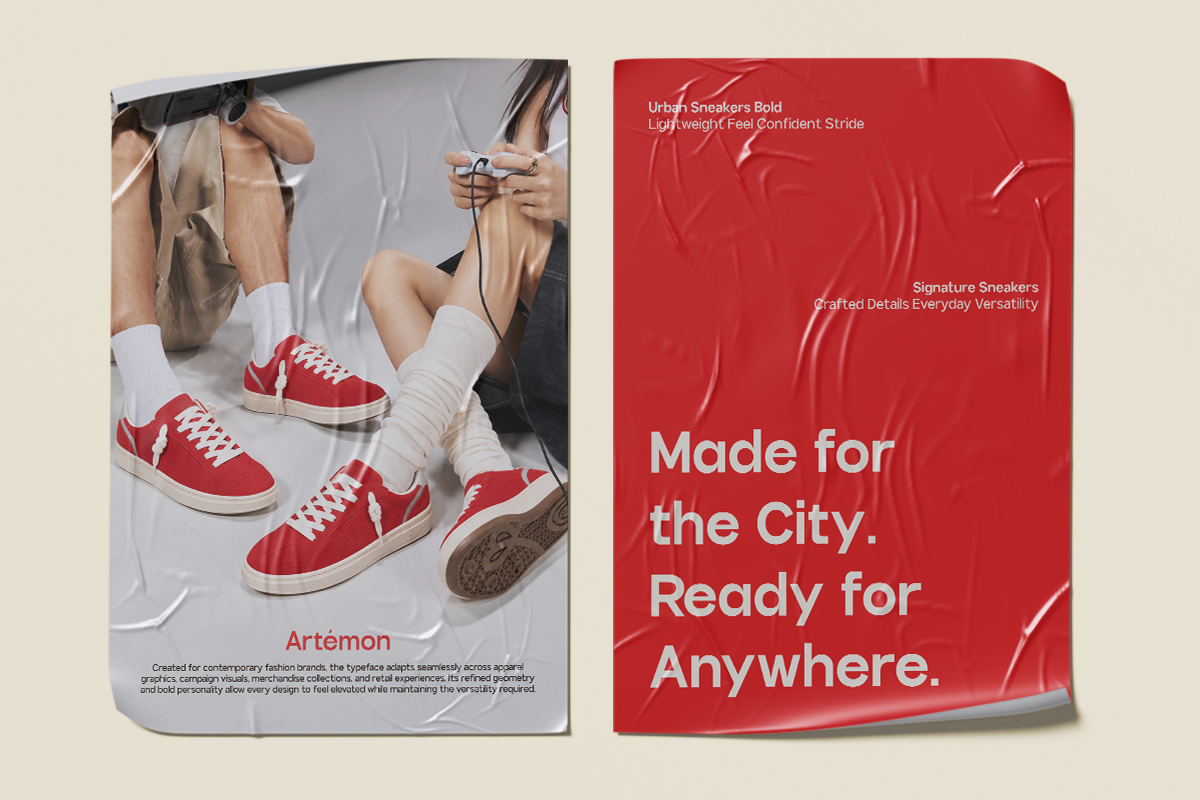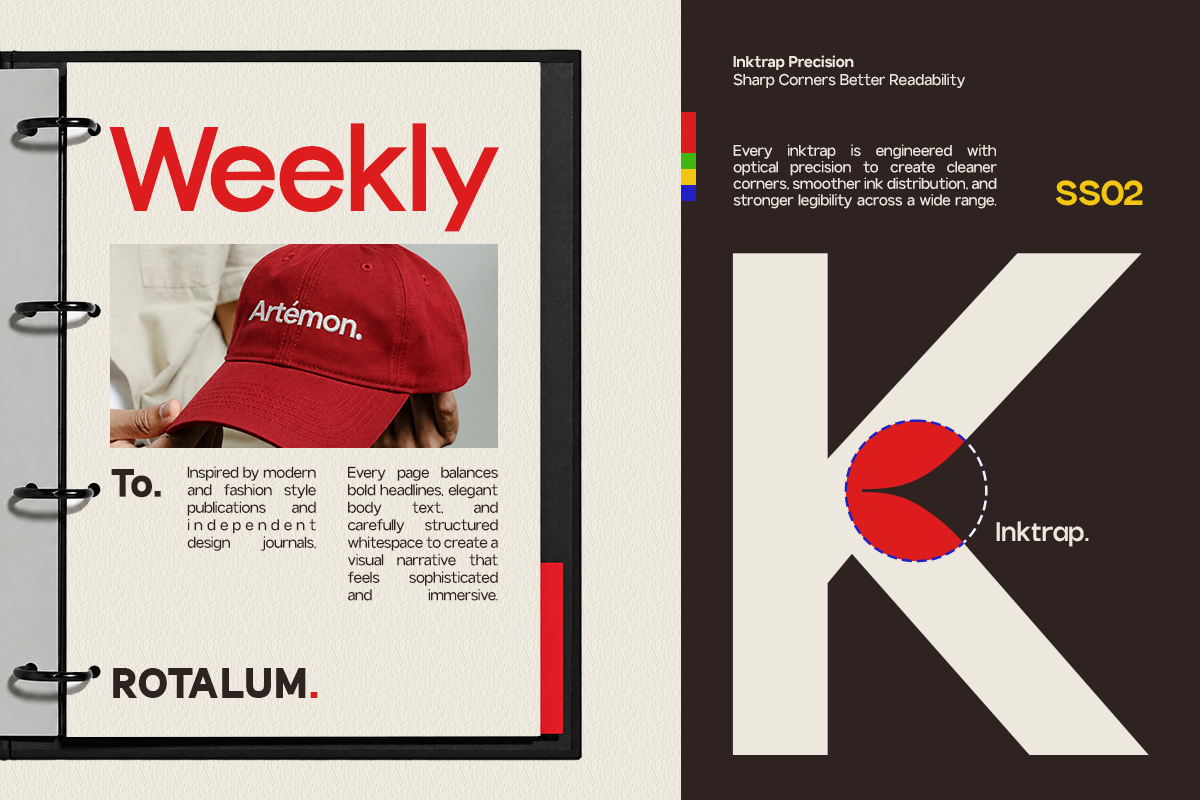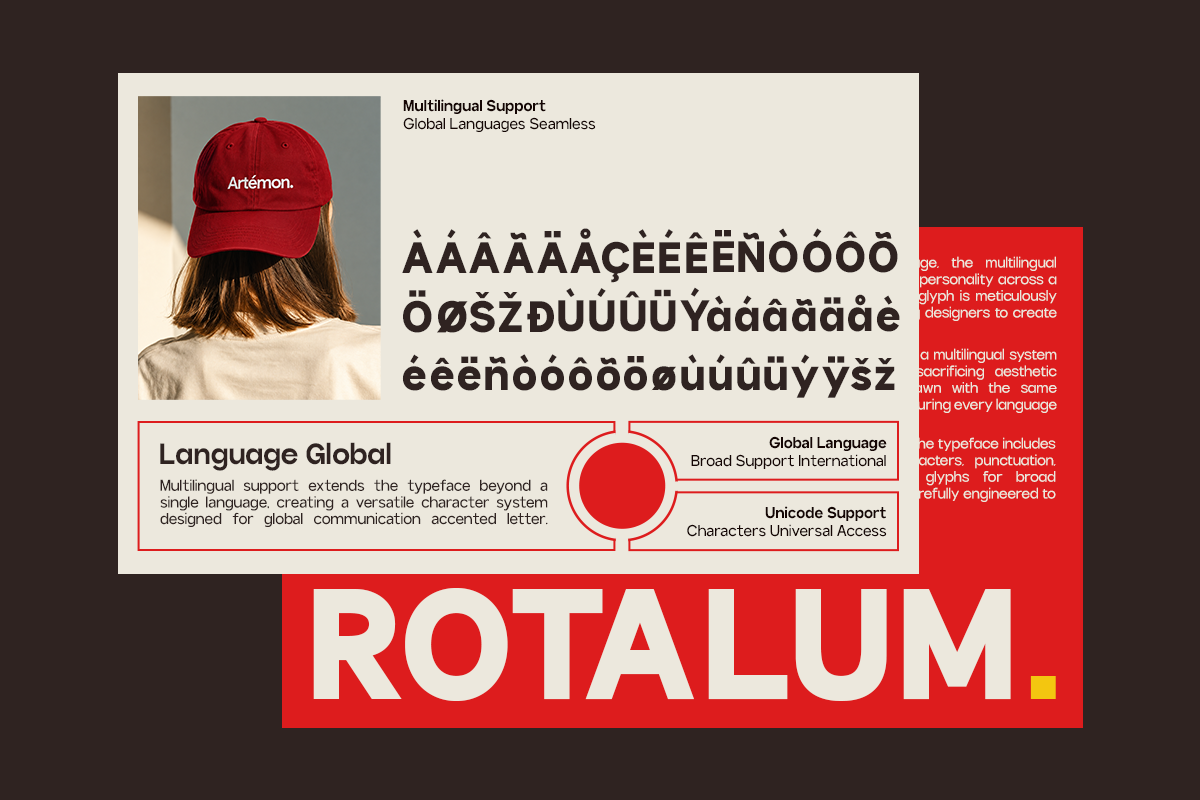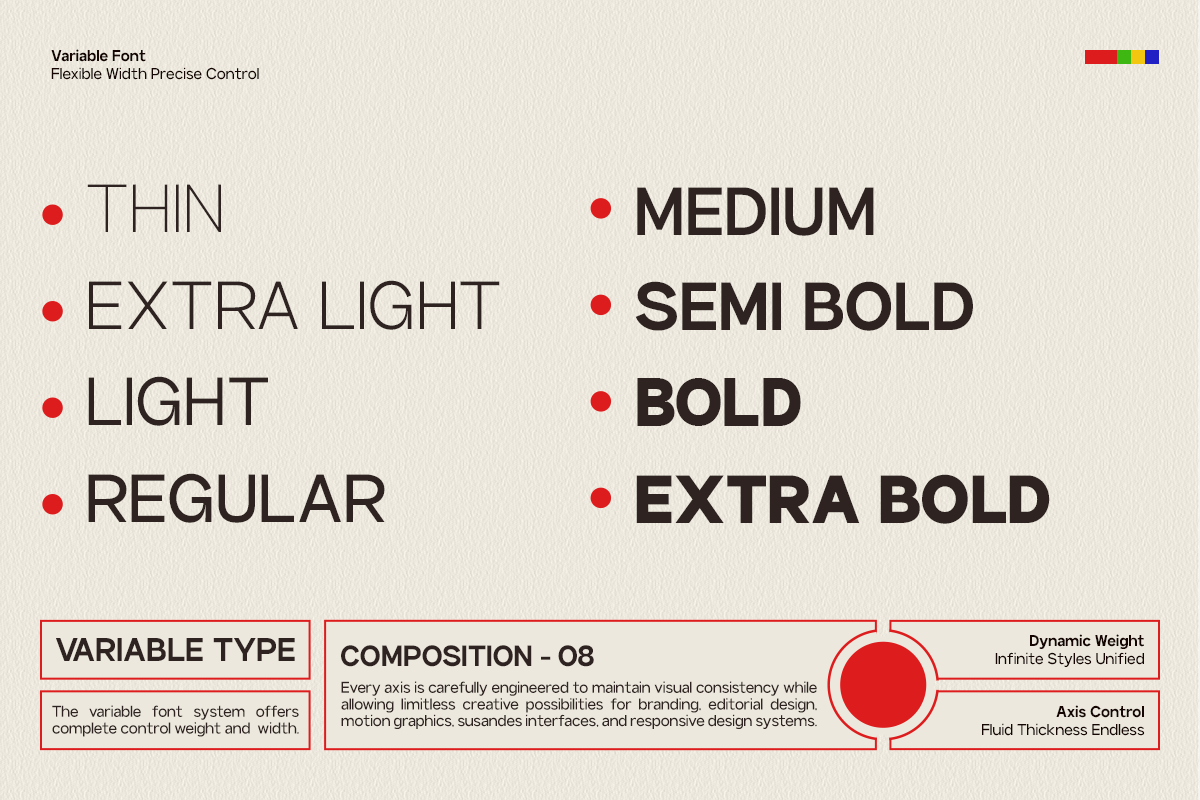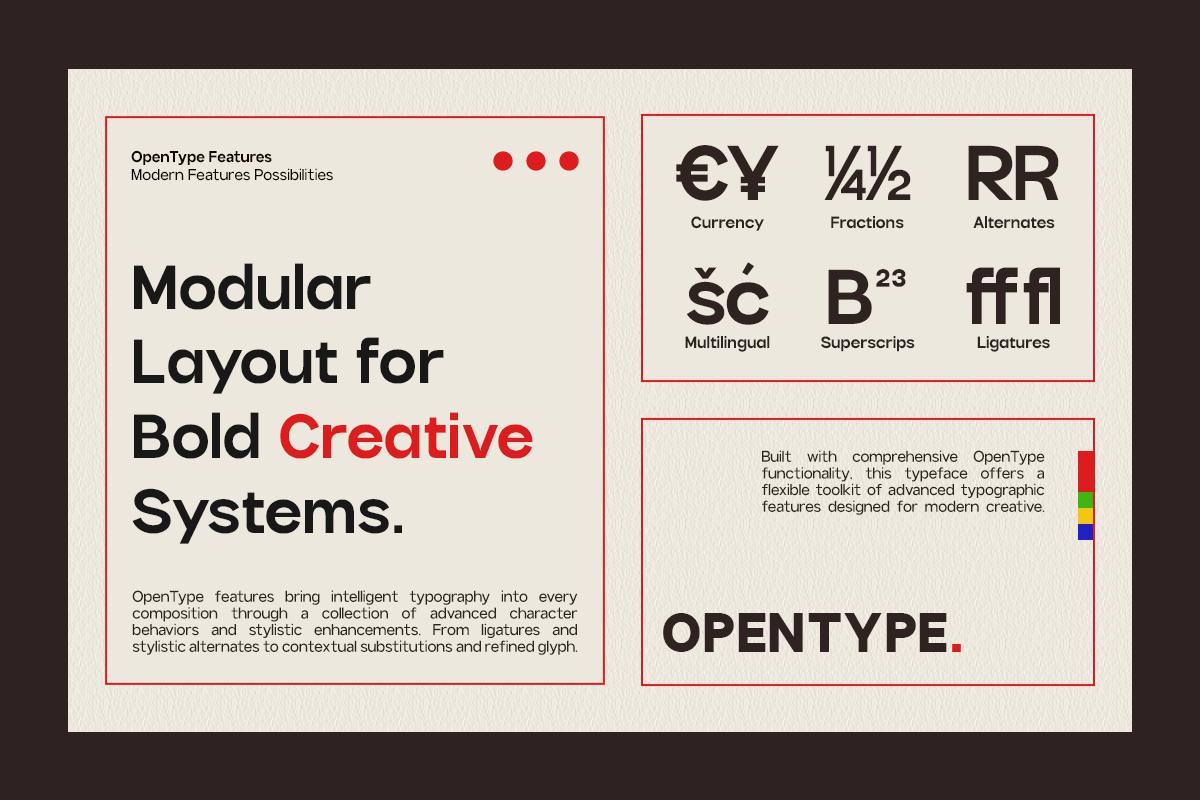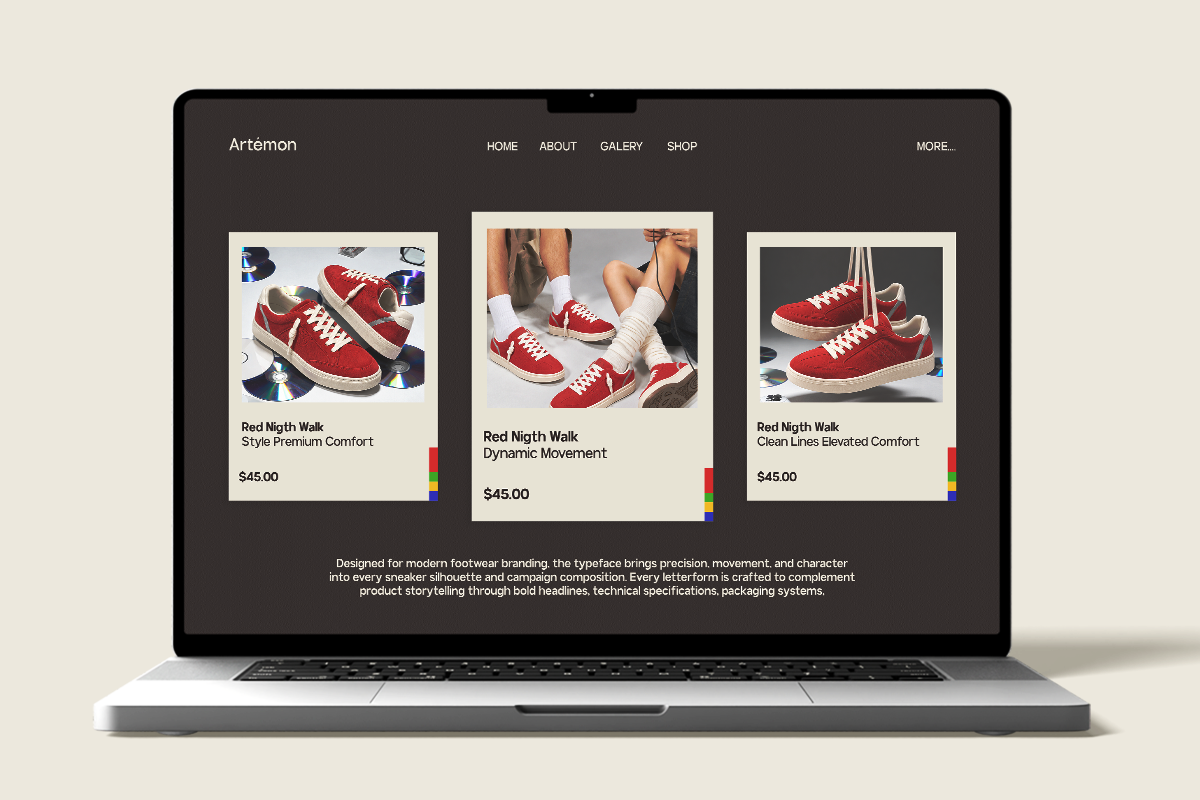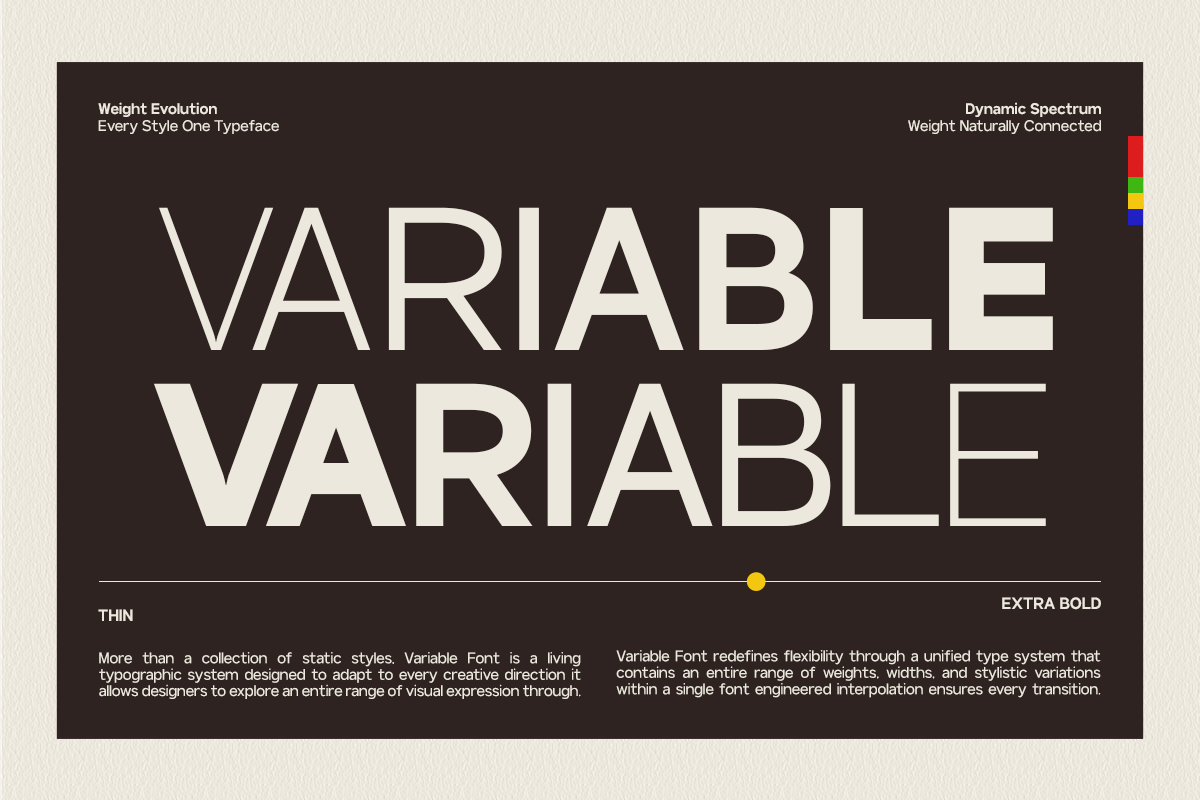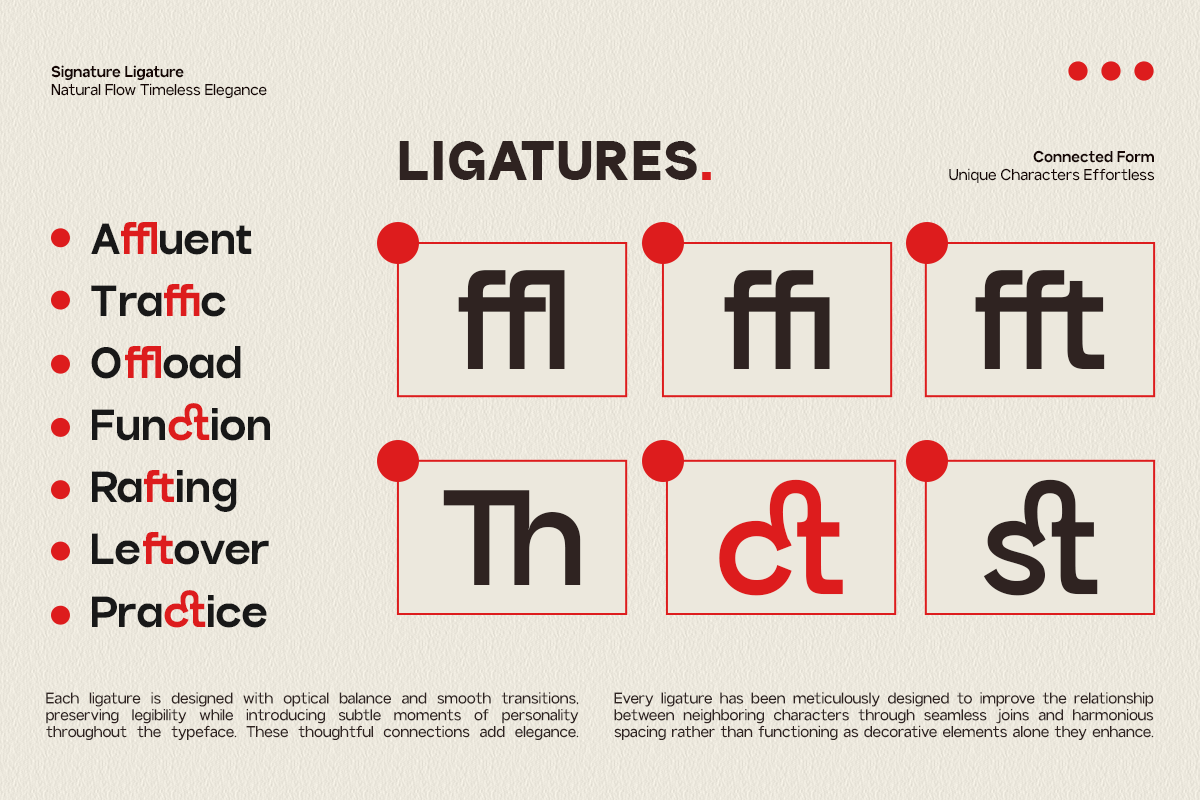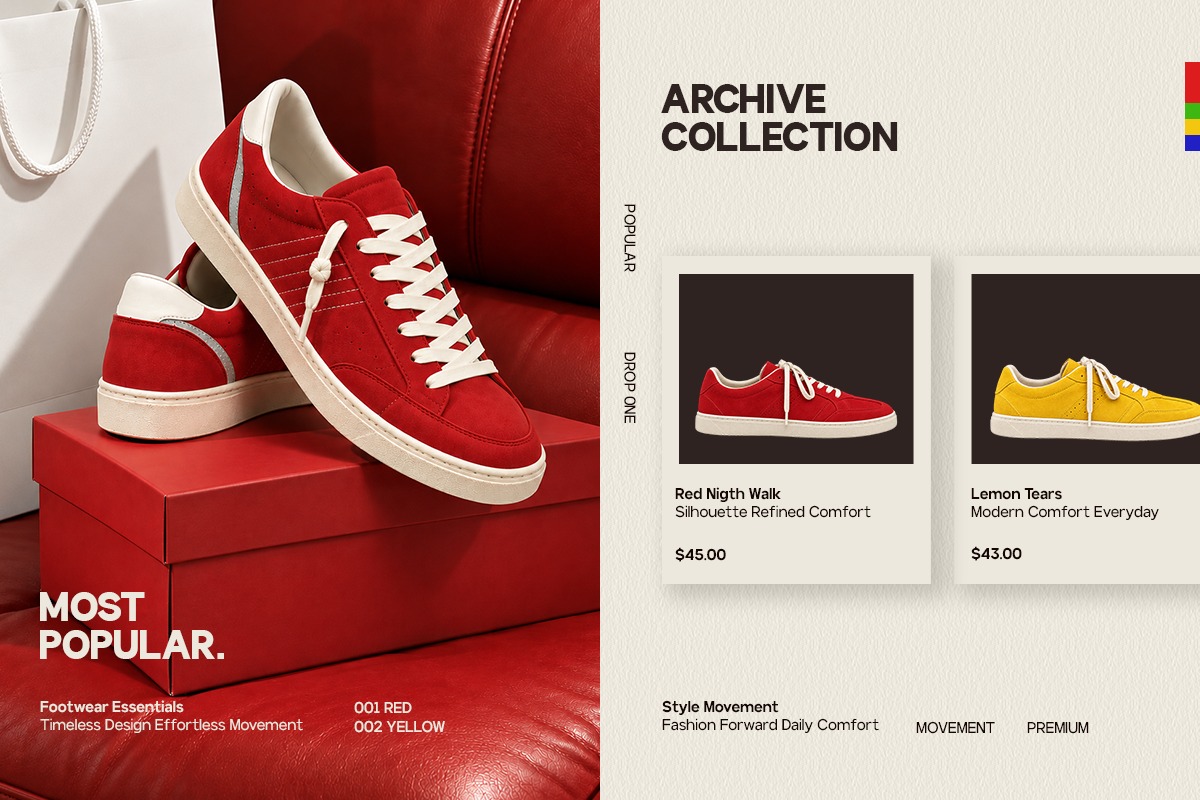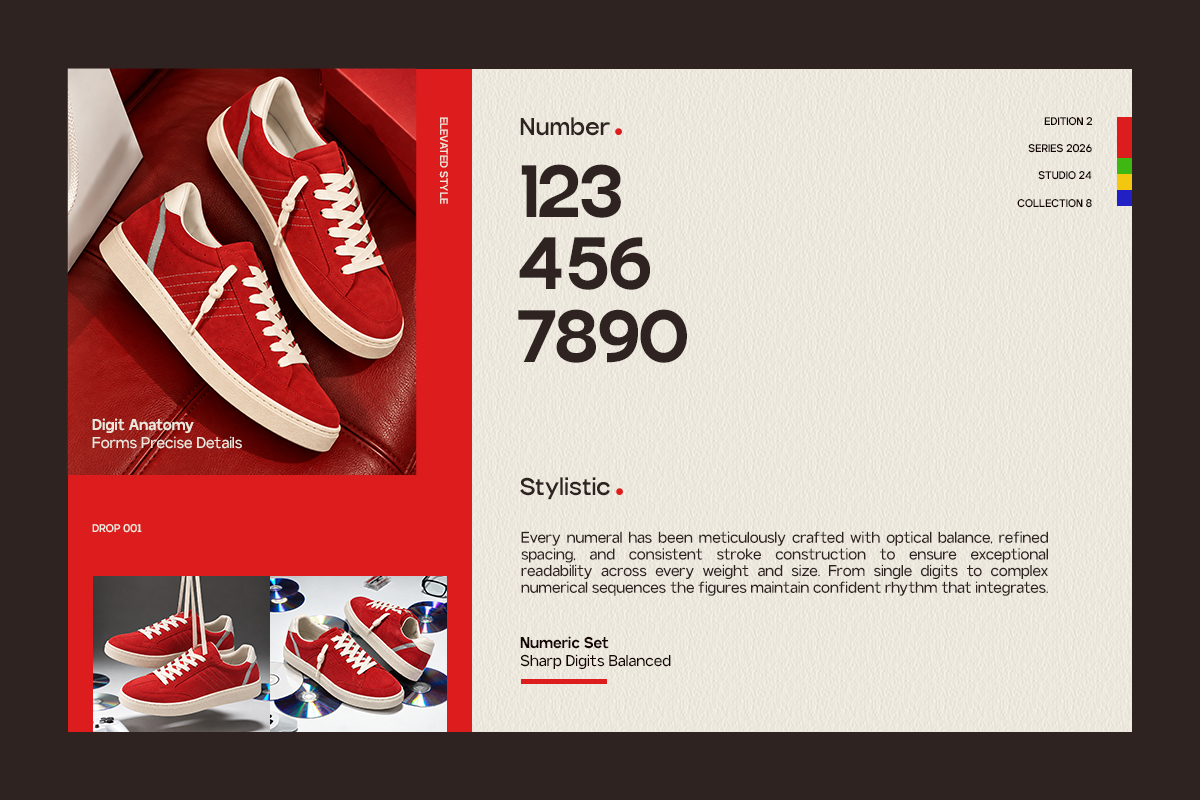
GC Rotalum Vol.II – Modern Bold Sans
GC Rotalum Vol. II – Modern Bold Sans is a contemporary sans serif type family designed to deliver bold clarity, adaptable structure, and confident modern typography. Created as the second evolution of the Rotalum series, this typeface combines clean geometric construction with strong headline proportions, making it ideal for impactful visual communication across both digital and print media.
Built as an 8-weight variable sans family, GC Rotalum Vol. II offers smooth weight transitions that allow designers to create consistent typography systems with complete flexibility. From elegant thin styles to powerful extra bold headlines, each weight maintains balanced spacing, crisp curves, and a refined modern appearance while preserving excellent readability.
Designed for branding, editorial layouts, UI/UX design, web interfaces, advertising campaigns, packaging, posters, presentations, and social media graphics, GC Rotalum Vol. II adapts effortlessly to a wide range of creative projects. Its bold personality and minimalist construction create a clean visual hierarchy without sacrificing versatility or sophistication.
With multilingual support and carefully engineered glyph spacing, GC Rotalum Vol. II performs exceptionally well in large headlines, modern identities, and scalable interface typography. Whether you're building a contemporary brand system or a high-impact editorial layout, this typeface brings strength, precision, and timeless modern style to every composition.
- Variable Font (8 Weight Styles)
- Thin to Extra Bold Weight Axis
- Modern Bold Sans Construction
- Clean Geometric Letterforms
- Adaptive Typography System
- Multilingual Support (170+ Languages)
- Latin Pro Character Set
Bring bold structure, modern versatility, and adaptive typography into every design with GC Rotalum Vol. II—a variable modern bold sans family crafted for branding, editorial design, UI/UX, advertising, packaging, and contemporary visual identities.